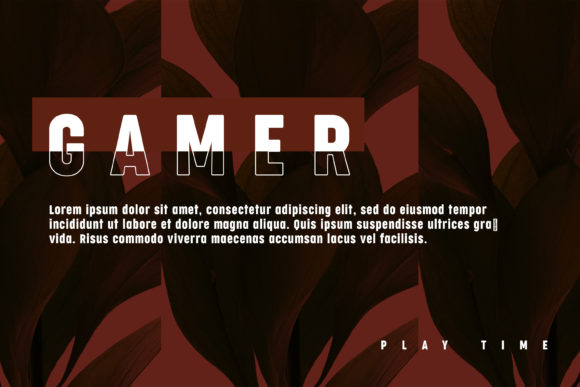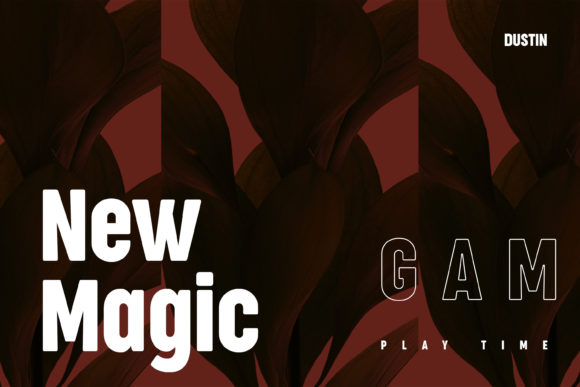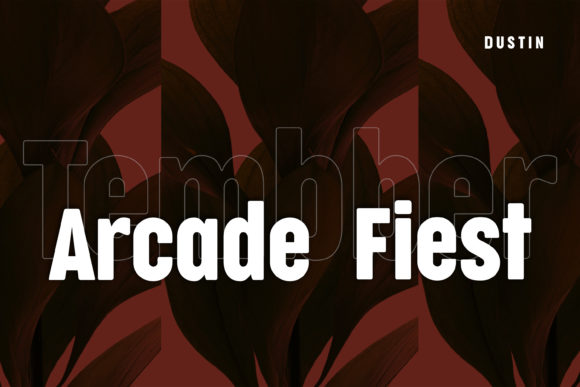
Dustin Font: Elevate Your Designs with a Cool, Bold, and Modern Sans Serif
In the world of typography, fonts play a crucial role in making or breaking a design. A perfect font can elevate your creative project from ordinary to extraordinary. If you’re on the hunt for a cool, bold, and modern sans serif font that can effortlessly match a wide range of projects, look no further than Dustin Font. In this article, we’ll dive into the world of Dustin Font, exploring its features, benefits, and uses, and why it’s a must-have for designers and crafters.
What is Dustin Font?
Dustin Font is a sleek and contemporary sans serif font designed to make a statement. Its clean lines, bold strokes, and modern aesthetic make it perfect for a variety of creative projects. Whether you’re working on a logo, branding materials, website design, or craft project, Dustin Font is sure to add a touch of sophistication and style.
Key Features of Dustin Font
- Cool and Bold: Dustin Font boasts a unique and eye-catching design that’s sure to grab attention. Its bold strokes and modern aesthetic make it perfect for headlines, titles, and emphasis text.
- Modern Sans Serif: The font’s sans serif design gives it a clean and contemporary look that’s perfect for modern designs.
- Highly Versatile: Dustin Font can be used in a wide range of projects, from logos and branding materials to website design, posters, and craft projects.
- Easily Readable: The font’s clear and simple design ensures that it’s easily readable, even at smaller sizes.
Benefits of Using Dustin Font
So, why should you choose Dustin Font for your next project? Here are just a few benefits of using this amazing font:
- Adds Visual Impact: Dustin Font’s bold and modern design is sure to add visual impact to your project, making it stand out from the crowd.
- Enhances Creativity: The font’s unique design and versatility make it perfect for creative projects, allowing you to experiment with different styles and ideas.
- Saves Time: With Dustin Font, you can easily find a font that matches your project’s style and tone, saving you time and effort in the design process.
- Professional Look: The font’s sleek and modern design gives your project a professional look that’s sure to impress.
Uses of Dustin Font
Dustin Font is an incredibly versatile font that can be used in a wide range of projects, including:
- Logo Design: The font’s bold and modern design makes it perfect for logos and branding materials.
- Website Design: Dustin Font can be used for website headers, titles, and emphasis text to add visual impact.
- Posters and Flyers: The font’s clear and readable design makes it perfect for posters and flyers.
- Craft Projects: Dustin Font can be used for a variety of craft projects, such as card making, scrapbooking, and DIY signs.
In conclusion, Dustin Font is a cool, bold, and modern sans serif font that’s perfect for designers and crafters looking to elevate their creative projects. Its versatility, readability, and professional look make it a must-have font for any design project. Whether you’re working on a logo, website design, or craft project, Dustin Font is sure to add a touch of style and sophistication. So why wait? Add Dustin Font to your creative arsenal today and notice how it makes your projects stand out!